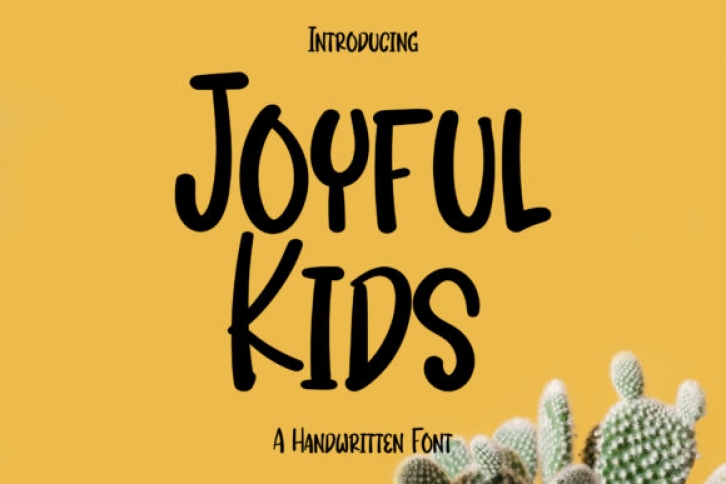
Joyful Kids is a simple, sloppy and sweet lettered handwritten font. Add this unedited and quirky font to your creations, and notice how they come alive.